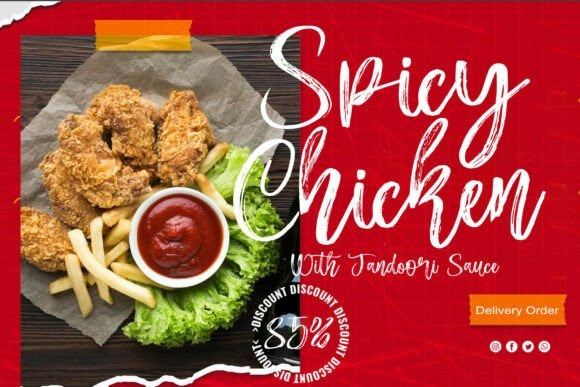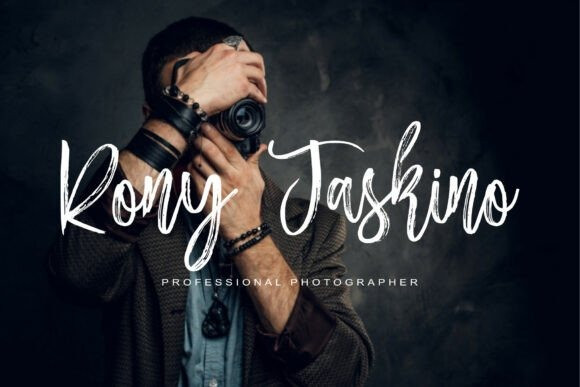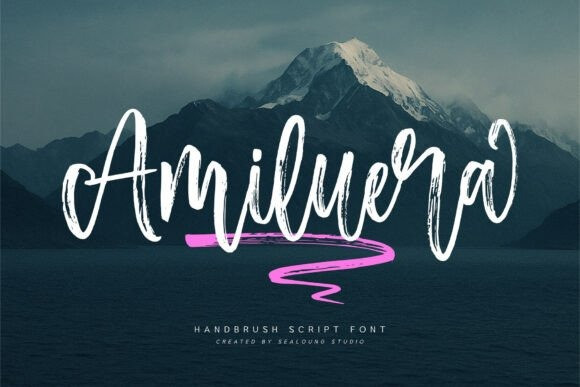
Amiluera Brush Font
Amiluera Brush Font a luxurious handbrush script font that embodies elegance, flow, and timeless charm. With its smooth strokes and graceful curves, Amiluera is designed to bring a romantic and sophisticated touch to your creative work.
Inspired by modern calligraphy and high-fashion branding, Amiluera offers beautifully connected letterforms with fluid movement making it perfect for wedding invitations, feminine logos, social media graphics, product packaging, and stylish editorial designs.